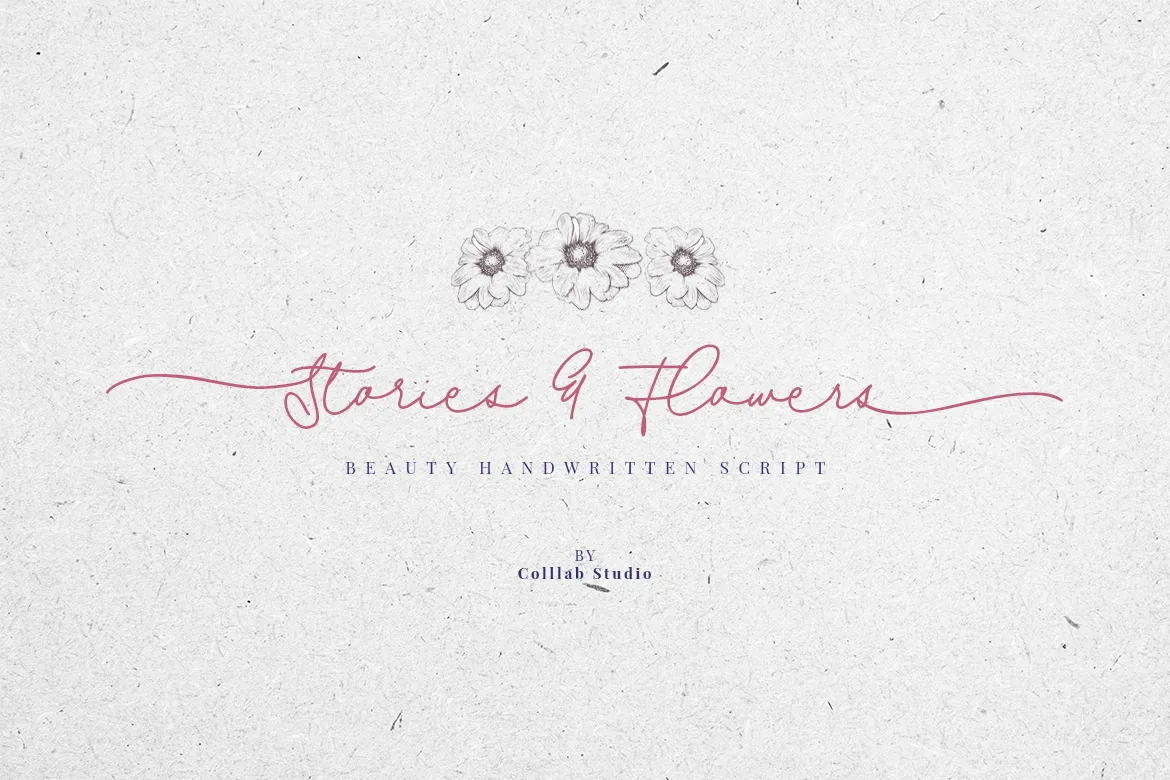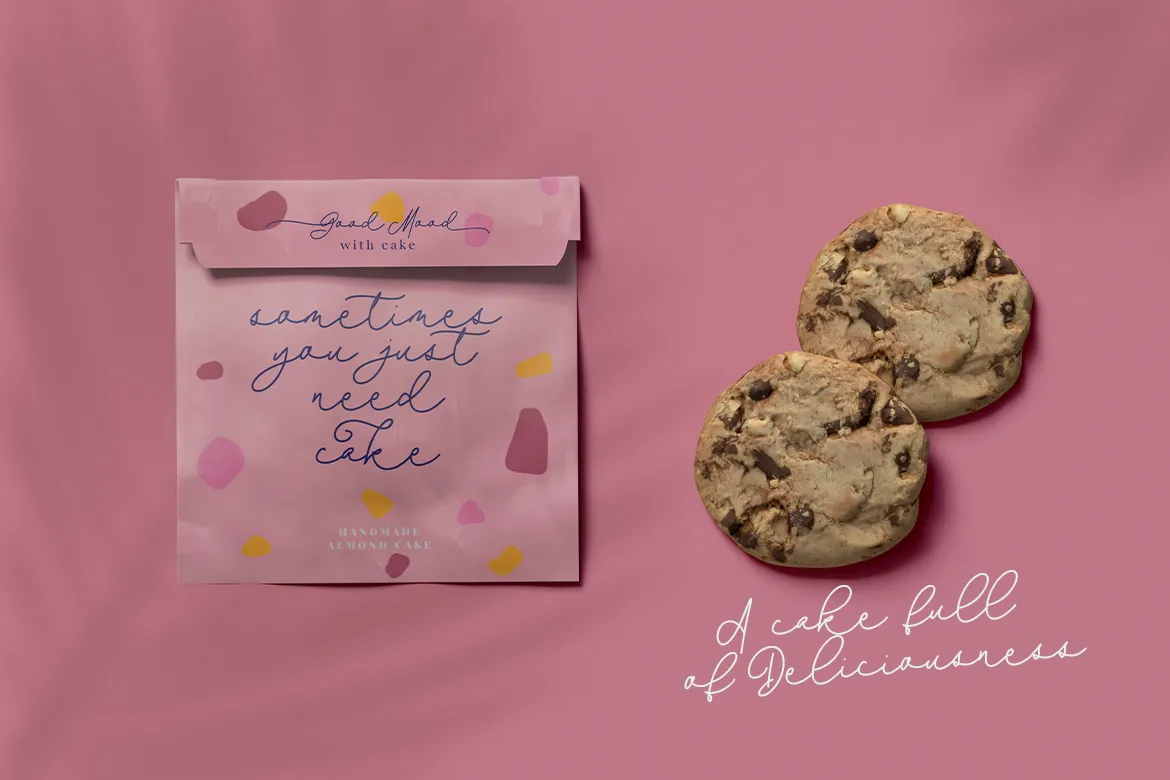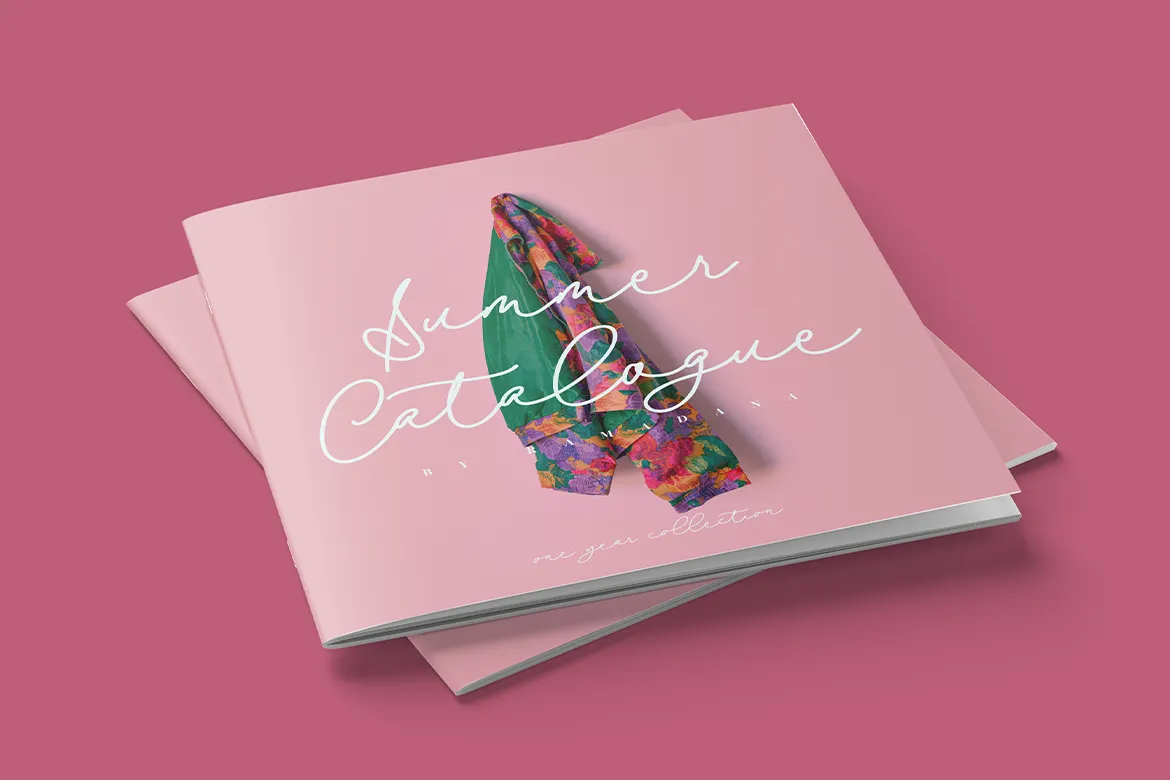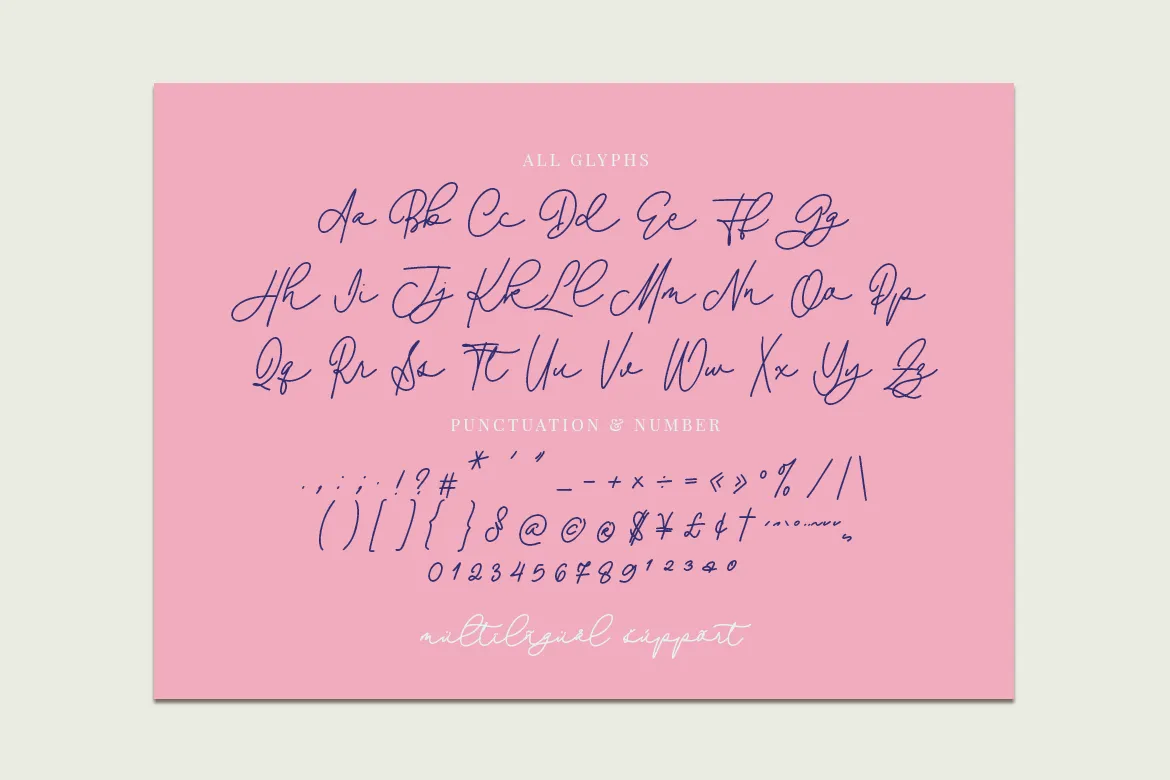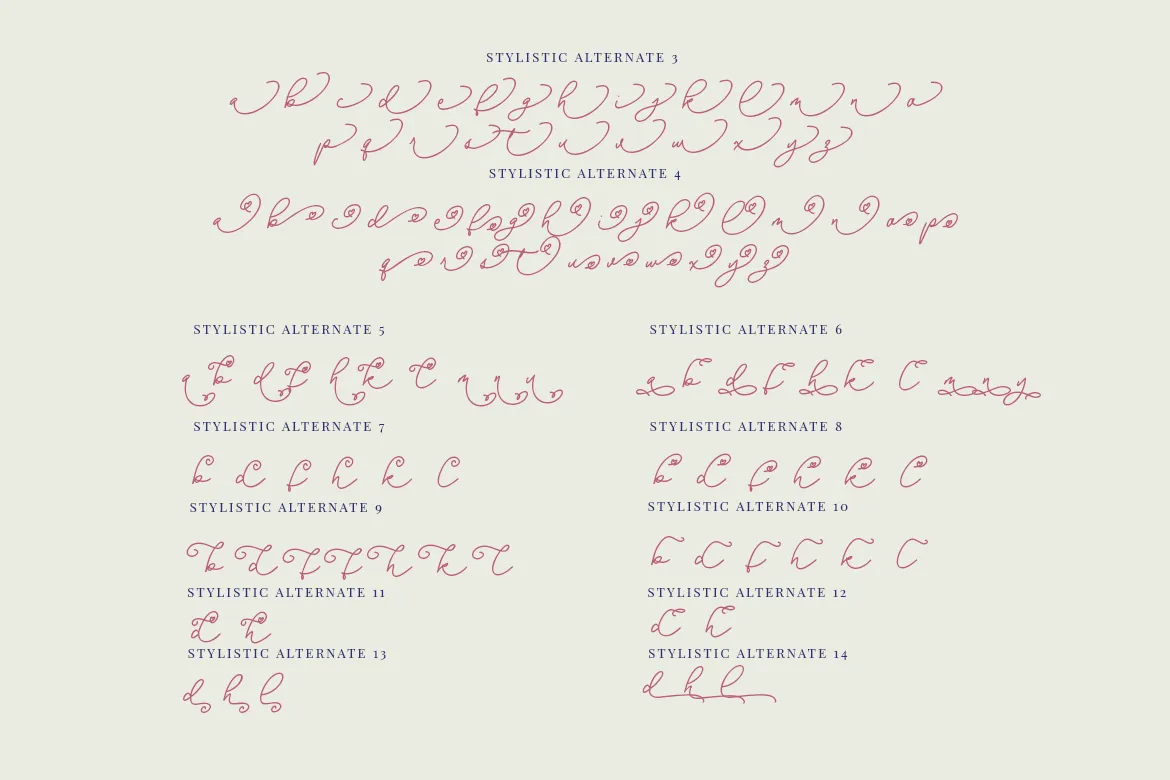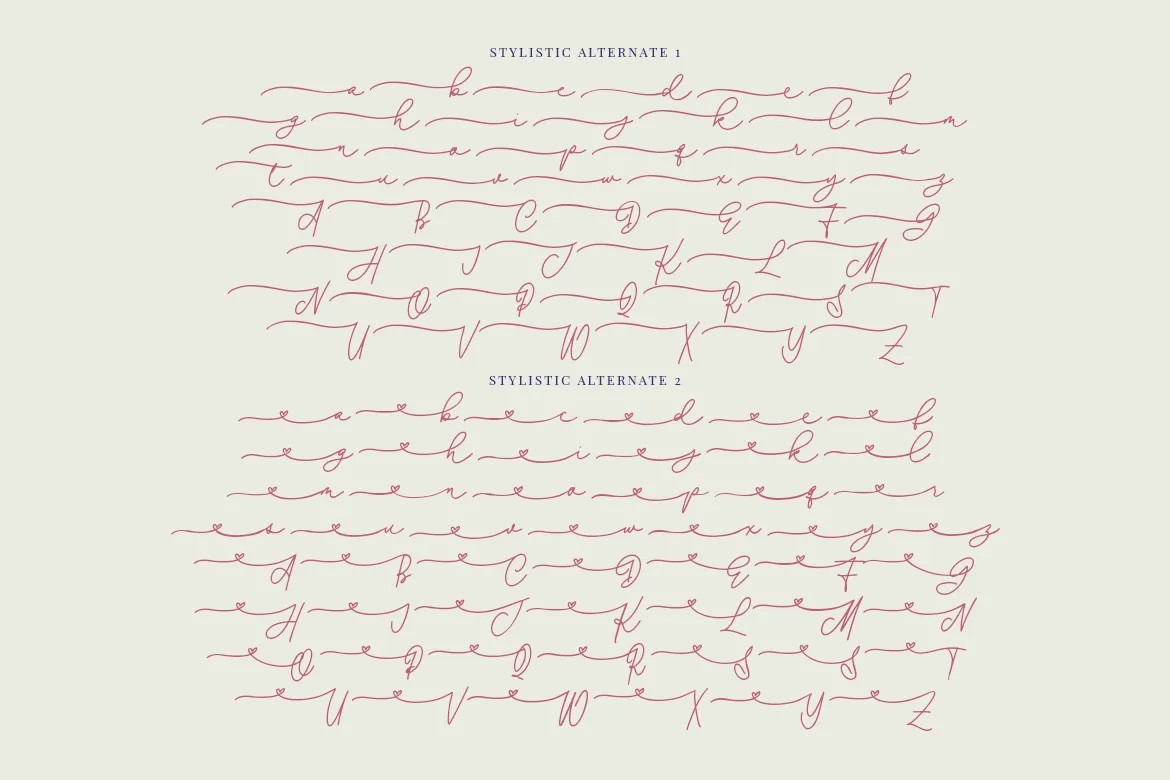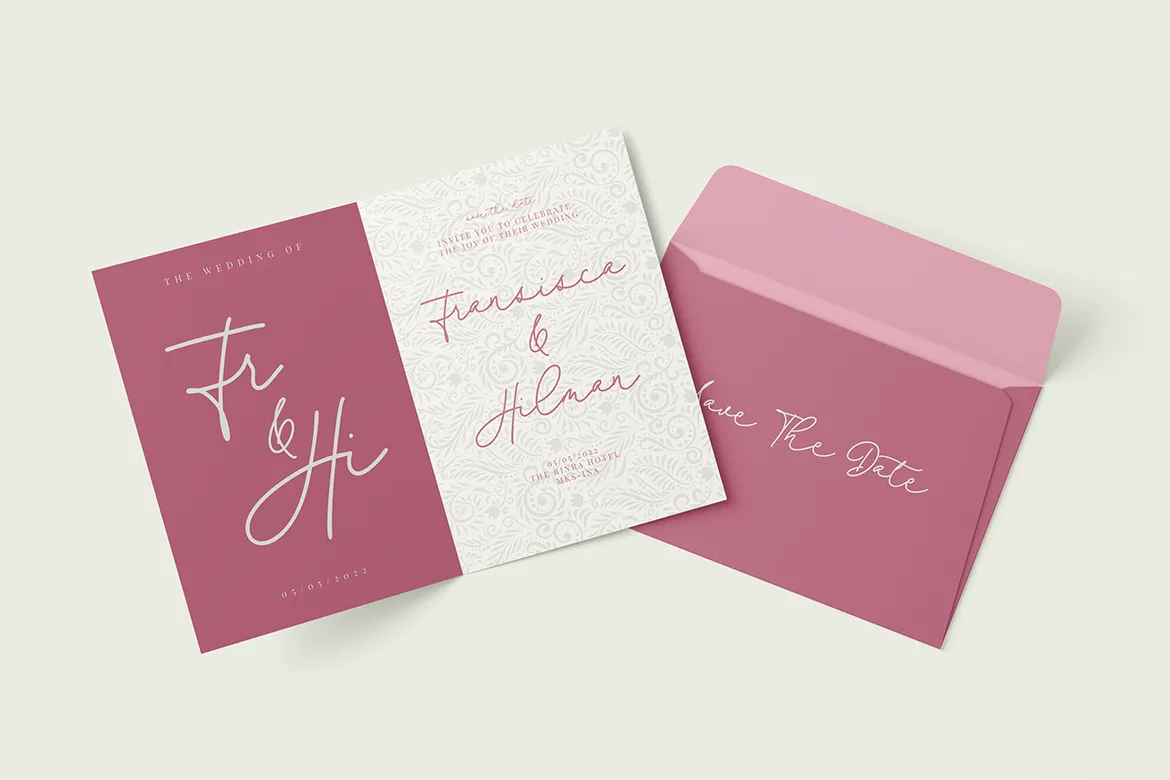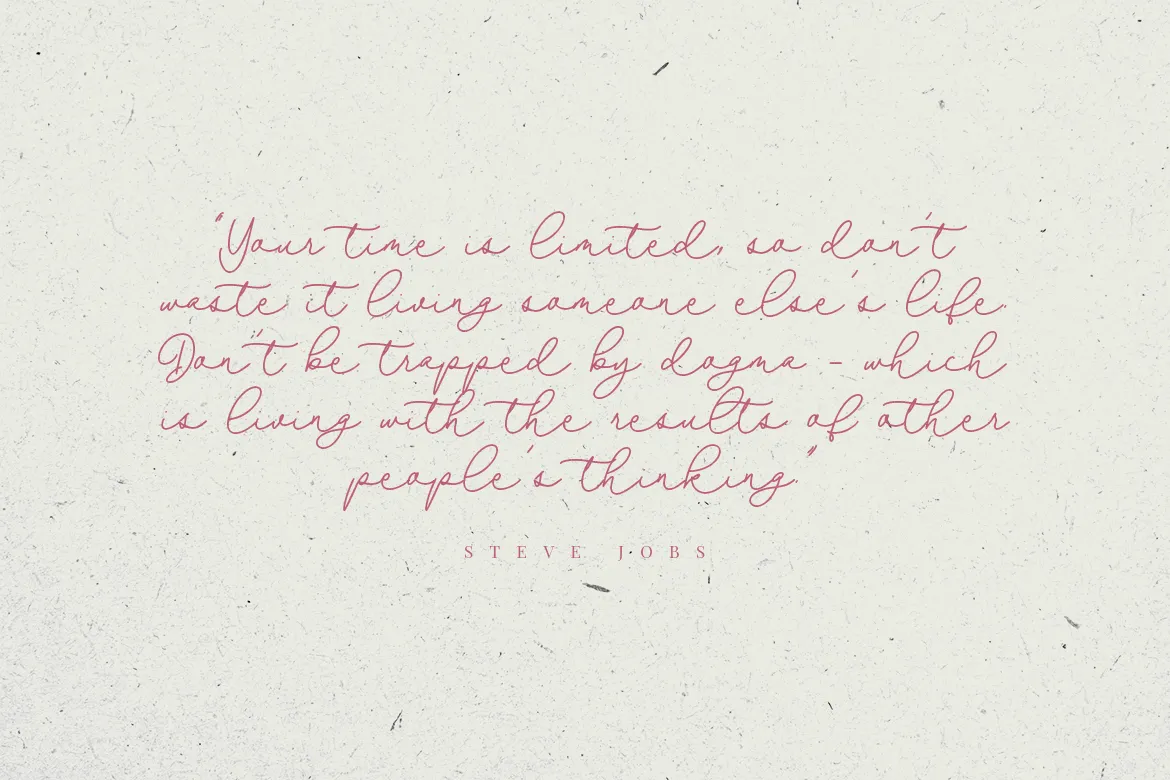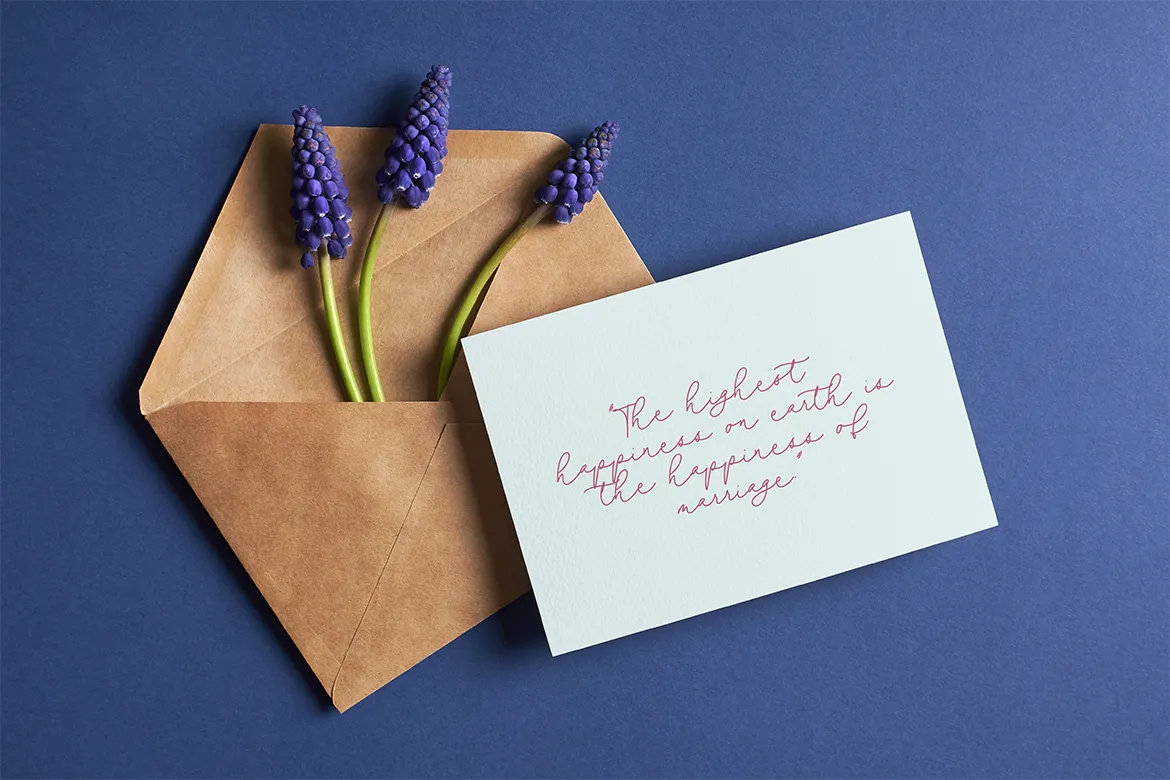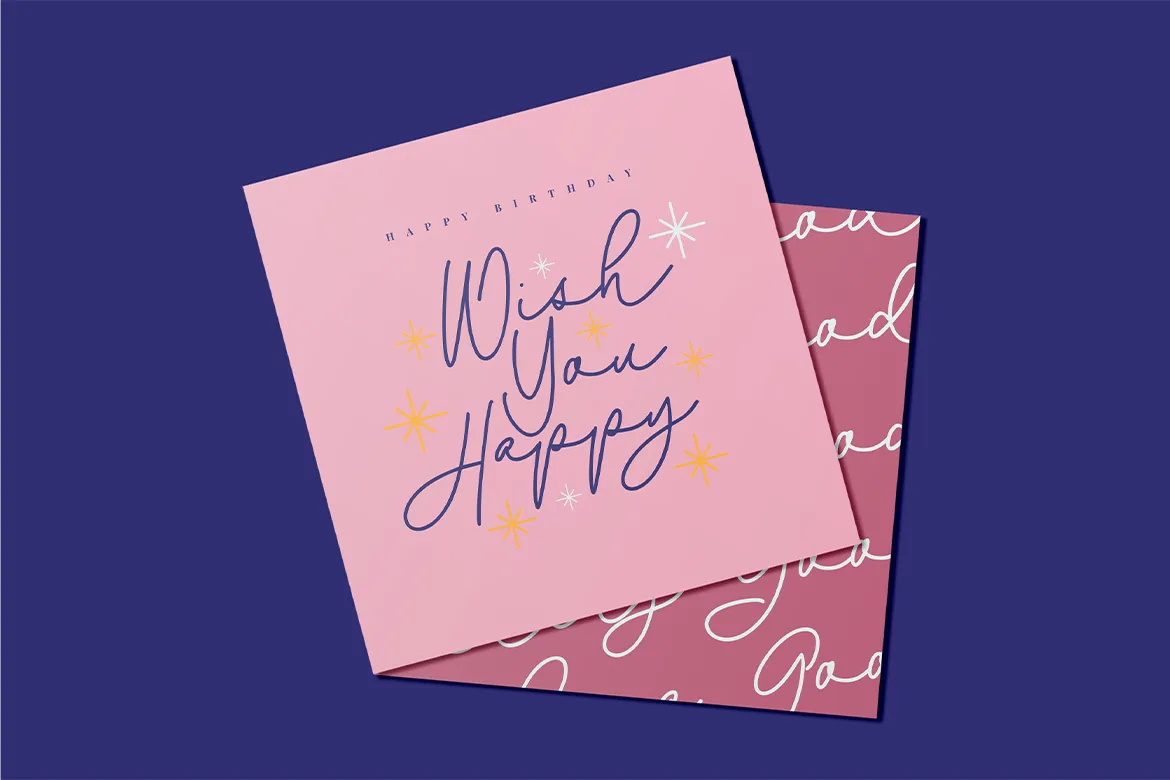
Stories & Flower carefully crafted with 600+ characters, 80+ unique ligatures and numerous sets of stylistic alternate both beginning and endings for each letter to give you a completely new style of presentation your viewers have never seen before.
It’s so much more than that. However, a common thread in our work as designers has been to find ways to make you stand out in the digital crowd. Presentations have become works of art; photography has become a form of visual expression. The subtle textures from pen touched letters tie it altogether to complete the package filling you with inspiration jut staring at the pixel perfect lines.